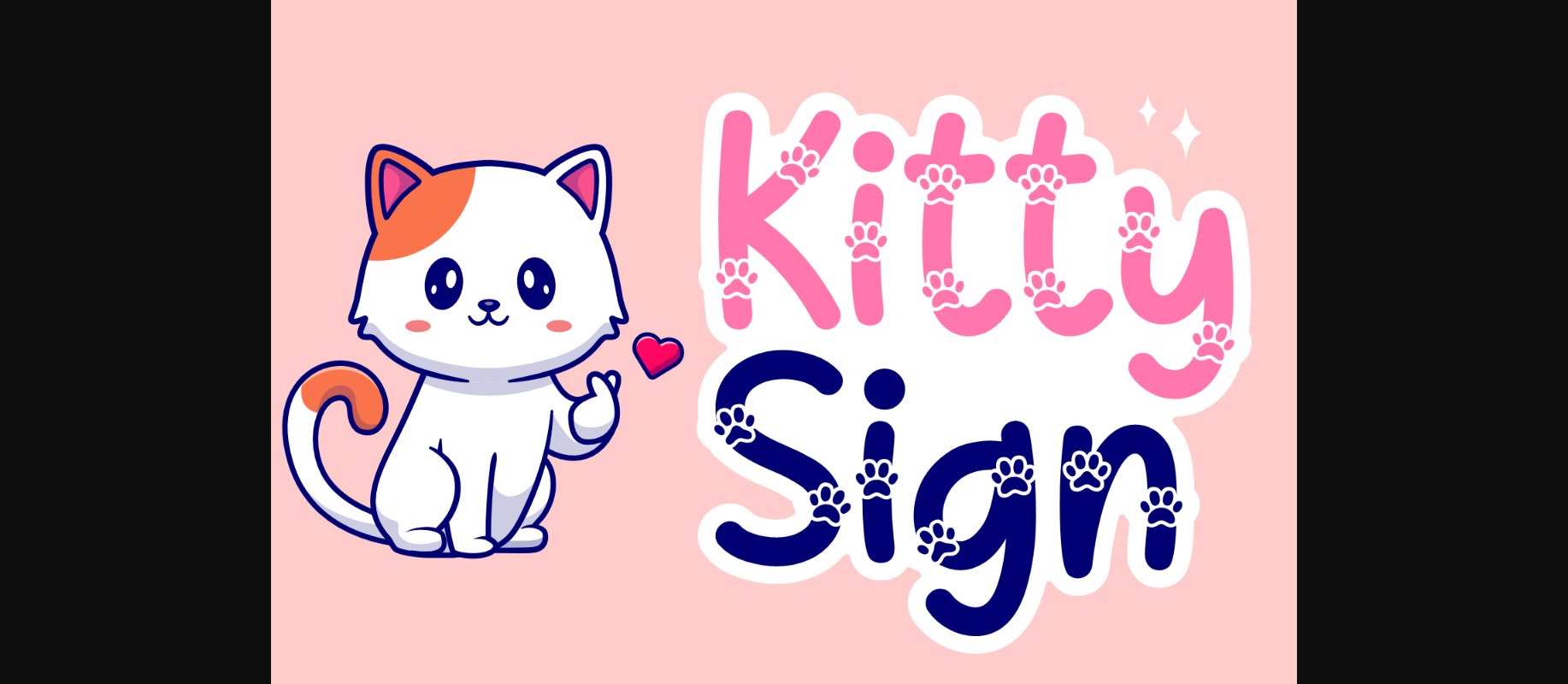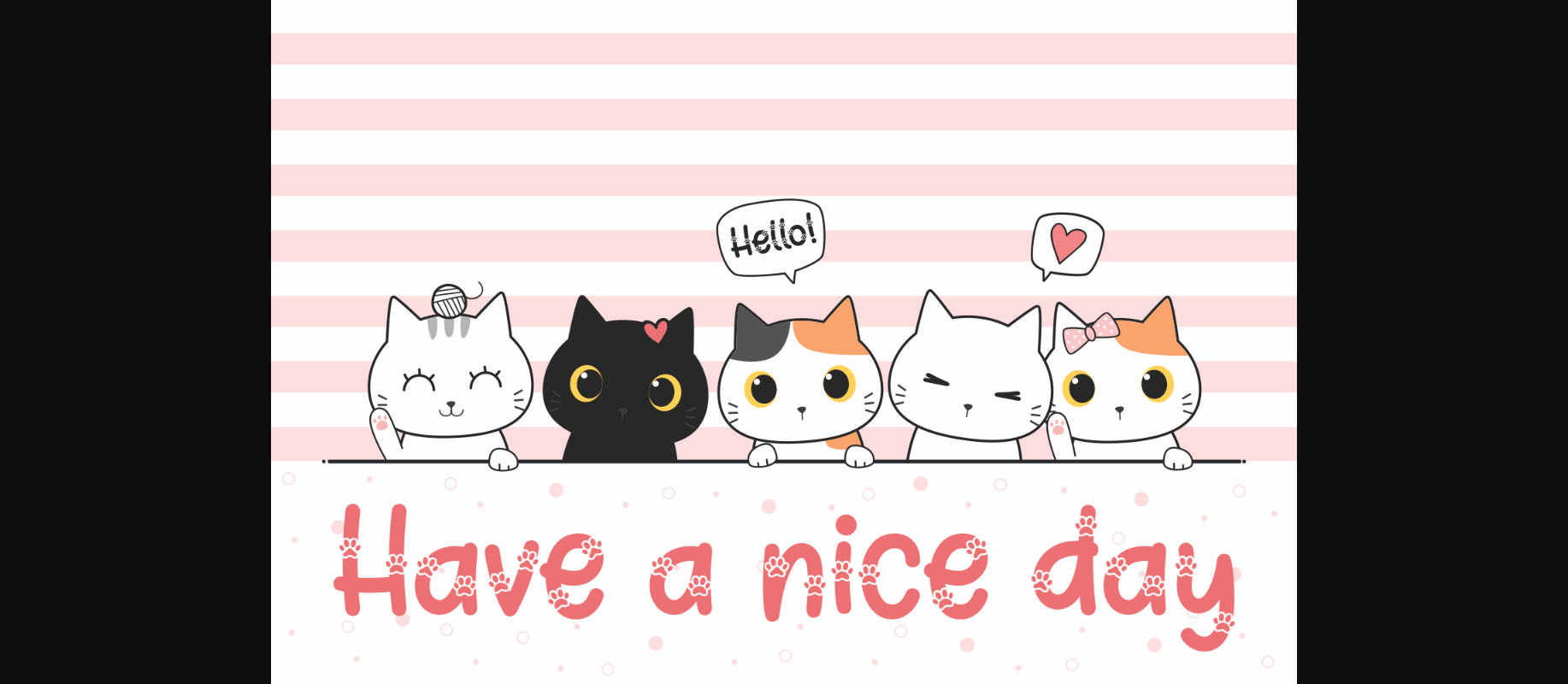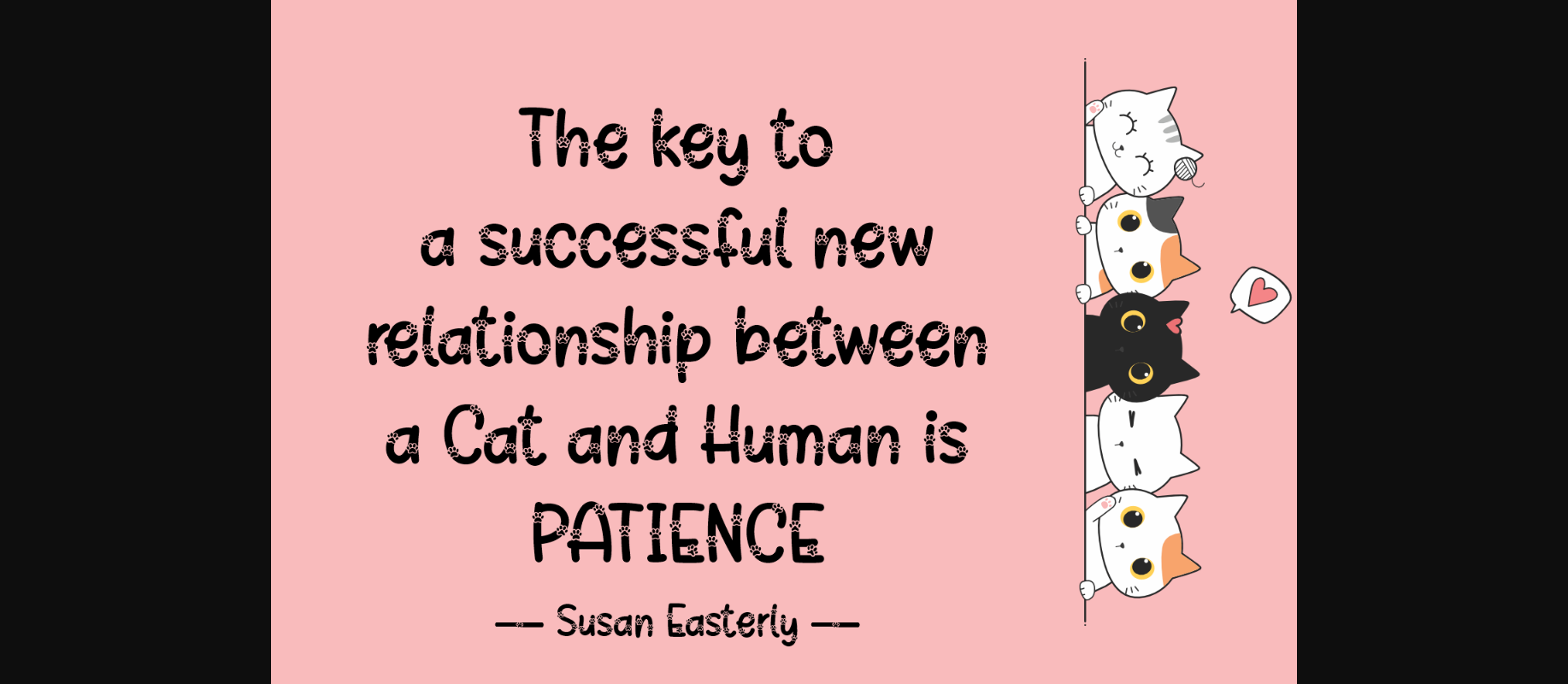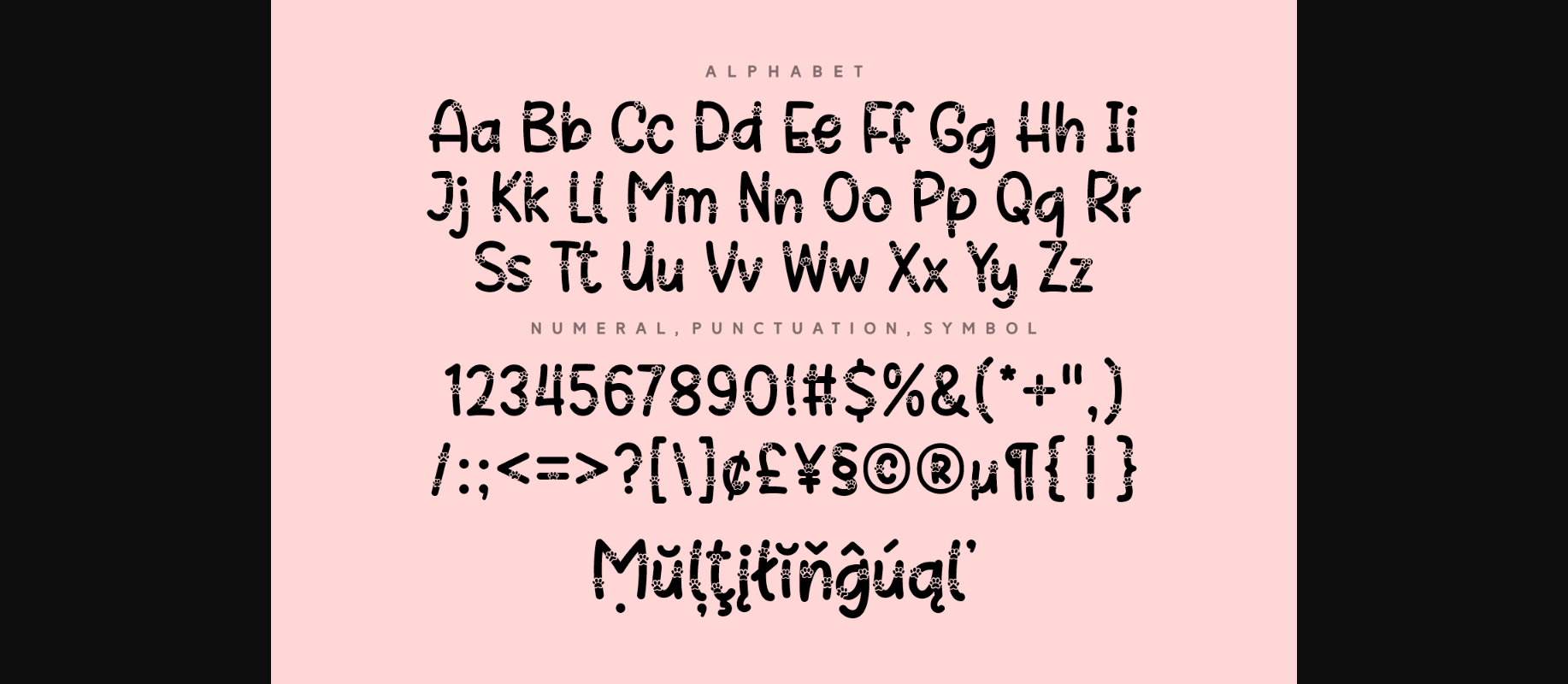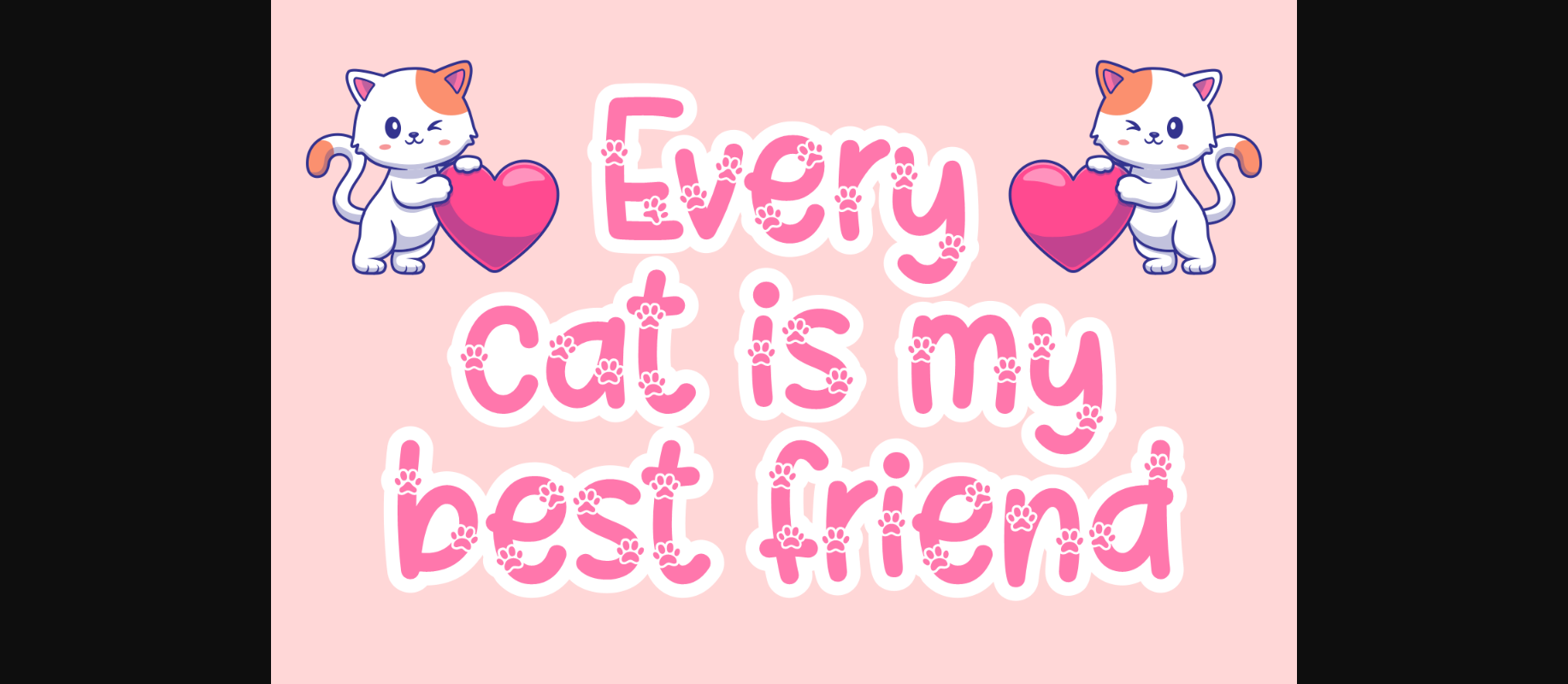
About Kitty Sign Font
Kitty Sign is an adorable cat-themed decorative font. With little paws embellishing the characters, this typeface will add extra cuteness to any design project!